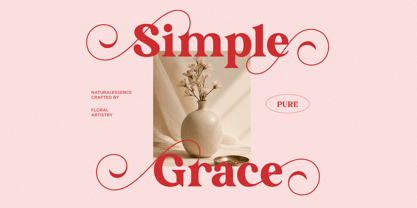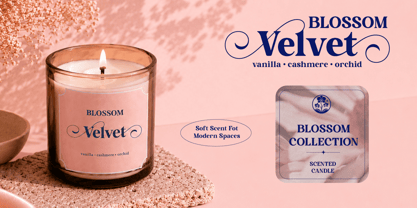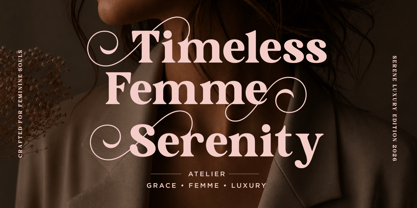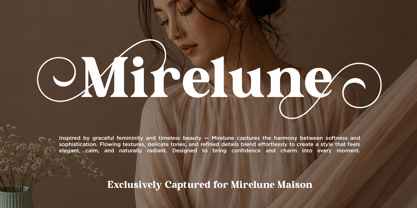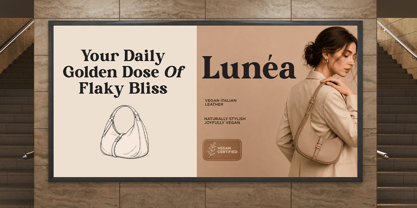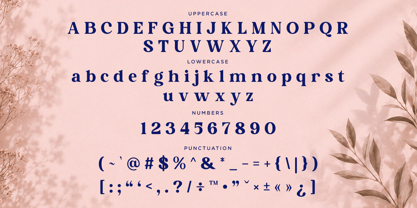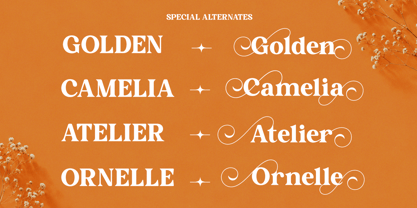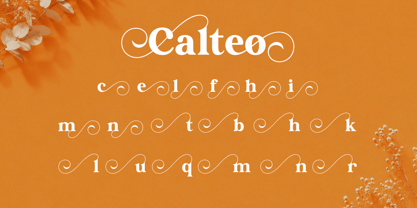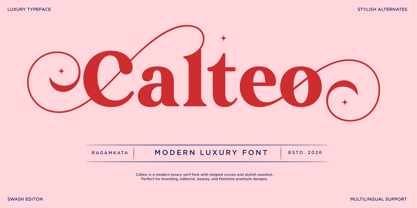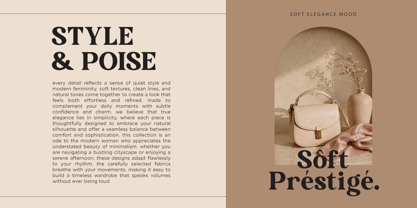
Calteo
Calteo is a sophisticated modern luxury serif font crafted to bring elegance, femininity, and premium style into your creative projects. Featuring graceful high-contrast letterforms, stylish swashes, and refined decorative curves, this typeface delivers a timeless luxury aesthetic with a modern editorial edge. Its elegant personality makes it ideal for designers seeking a font that feels exclusive, fashionable, and high-end.
Perfect for luxury branding, beauty packaging, cosmetic labels, wedding invitations, editorial layouts, boutique logos, social media campaigns, fashion magazines, and premium product presentations.
Calteo combines classic serif sophistication with contemporary artistic flair, making it highly versatile for both branding and display typography.
Designed with multilingual support and stylish alternates, Calteo gives creators flexibility to craft distinctive typography compositions with premium visual impact.